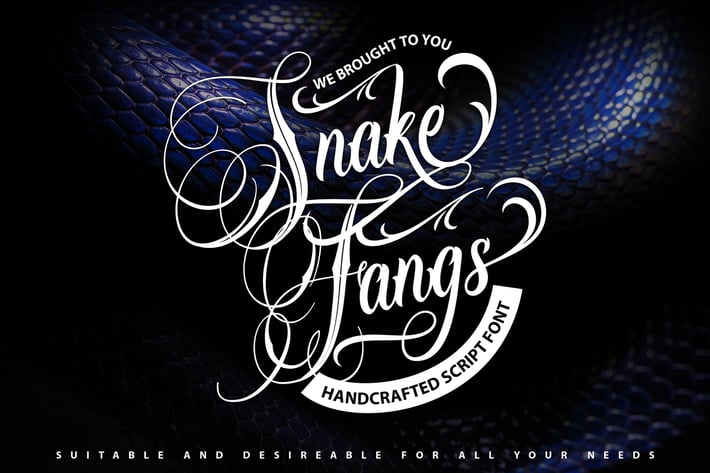
Snake Fangs | Handcrafted Script Font
Snake Fangs | Handcrafted Script Font with a calligraphy style, So beautiful on invitation like greeting cards, branding materials, business cards, quotes, posters, and more!